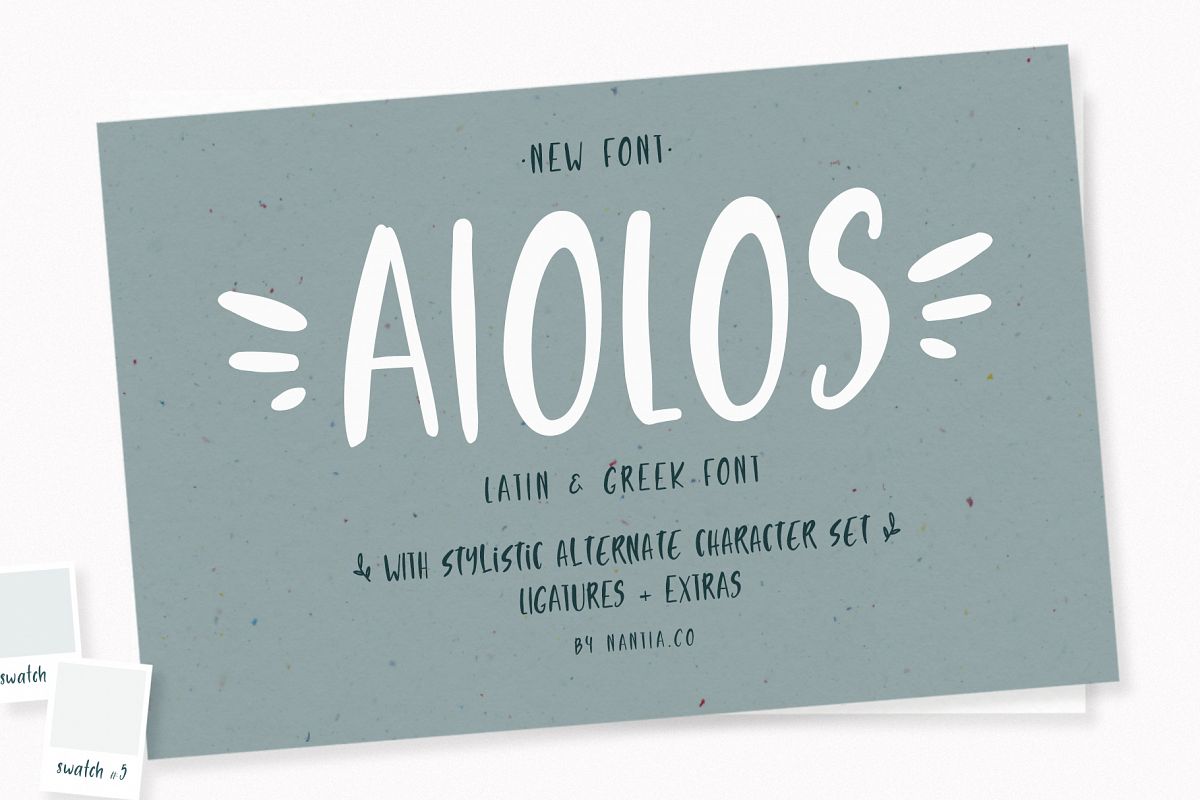
Aiolos Greek Font with extras
AIOLOS Greek Font with extras
This font is a hand-made typeface with Greek Character support. With cute doodles icons in PUA encoding, this typeface can be a mighty companion to your next graphic design project. From "hand-written" quotes to product packaging, merchandise, and branding projects, this font is so versatile that it can cover them all.
• Extended Latin Characters
• Greek Characters
• Numerals
• Stylistic Alternate Character Set
• icon doodles in PUA